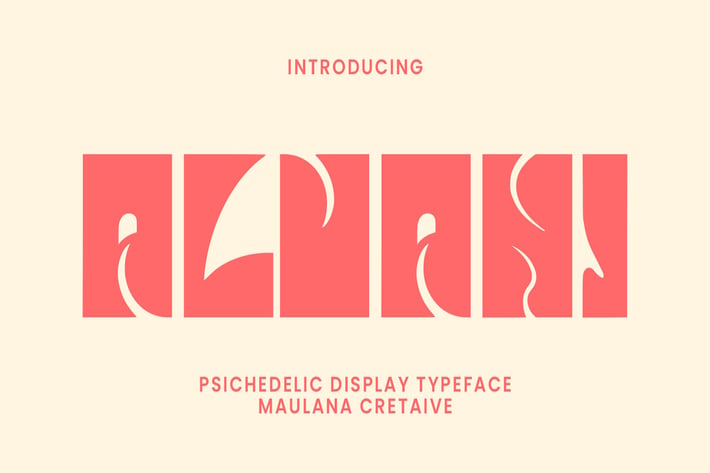
Alvani Psichedelic Display Typeface
Alvani psichedelic display typeface. Bold stroke, fun character with a bit of ligatures. To give you an extra creative work. Alvani psichedelic display typeface support multilingual more than 100+ language. This font is good for logo design, Social media, Movie Titles, Books Titles, a short text even a long text letter and good for your secondary text font with script or serif. Make a stunning work with Alvani psichedelic display typeface.